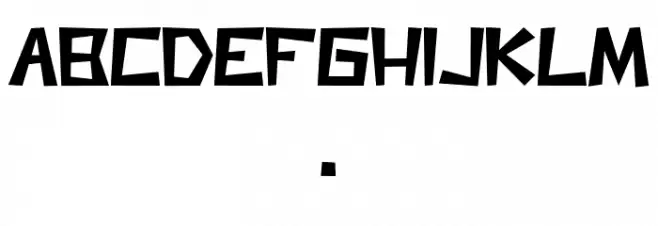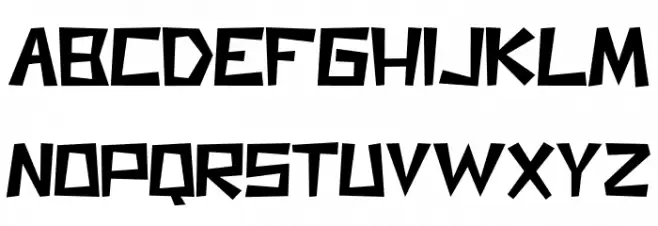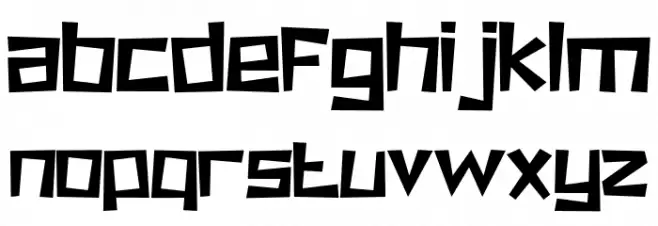
Super Crash Regular Font
Super Crash Regular Description
A bold, geometric display font with sharp, angular letterforms and irregular, playful shapes that create a dynamic, energetic appearance. The characters have a hand-drawn, comic-inspired feel with uneven baselines and varying stroke directions.
Bold, angular display font with a playful, comic-inspired style.
- Proposed Projects: Posters, comic book titles, video game graphics, event flyers, youth branding, and creative headlines.
- Overall Style: Decorative, Playful, Modern
- Use Case: Headlines, Posters, Logos, Comic Titles